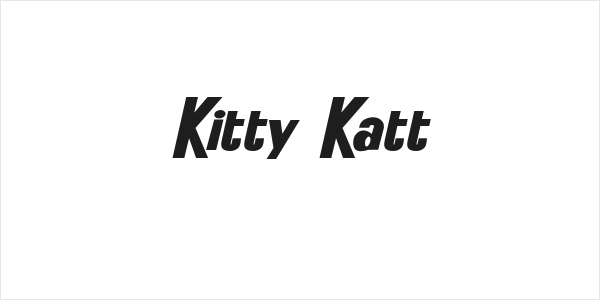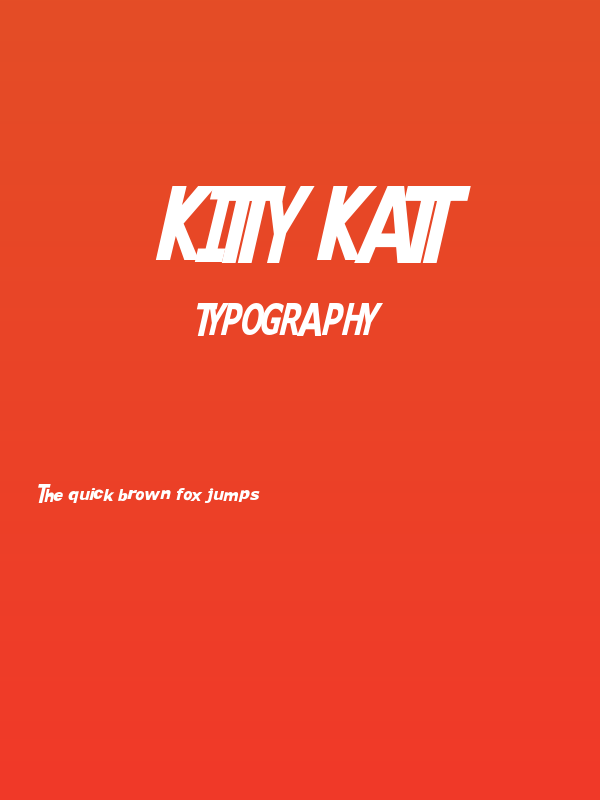
Kitty Katt Font
Kitty Katt Description
This font features a bold and dynamic style with a slight slant, giving it an italicized appearance. The characters are thick and robust, providing a strong visual impact. The uppercase and lowercase letters maintain a consistent weight, ensuring readability. The numerals and special characters are designed to match the overall boldness, making them stand out. The font's design is modern and sleek, suitable for projects that require a contemporary and assertive look. Its bold nature makes it ideal for headlines and titles, where emphasis is needed.
| Proposed Projects | Ideal for headlines, advertising, branding, and any project requiring a strong visual impact. |